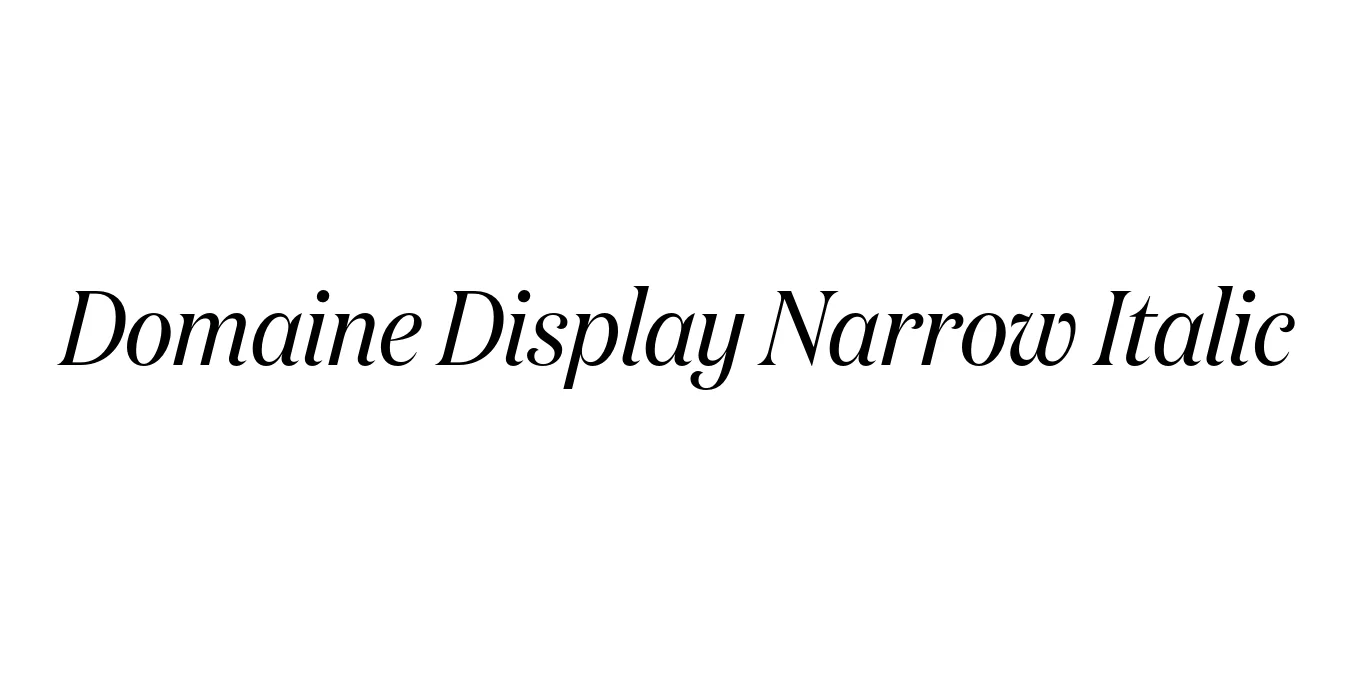
Domaine Display Narrow Italic
Designed by Kris Sowersby
Domaine Display Narrow Italic is a refined and elegant serif typeface designed by Kris Sowersby and released through the Klim Type Foundry. It is part of the larger Domaine family, which explores the 'Latin' style of serifs—a genre characterized by sharp, triangular serifs and high contrast that became popular in the late 19th century. This specific Narrow Italic variant was meticulously crafted to balance space efficiency with a sophisticated, fluid aesthetic, making it a staple for high-end typography.
The design of Domaine Display departs from the traditional Scotch Roman and Didot influences, offering a more contemporary and curvaceous approach to display typography. Its sharp terminals and rhythmic slant make it particularly effective for high-fashion editorial work and luxury branding. The Narrow Italic weight provides a sense of grace and couture, allowing designers to create impactful headlines and titles that feel both historical and modern simultaneously.
Domaine Display Narrow Italic Best Uses
Sophisticated magazine layouts and stylish article titles.
High-end product logos and premium retail packaging.
Eye-catching titles in environments where horizontal space is limited.
Modern arts and culture promotional materials.